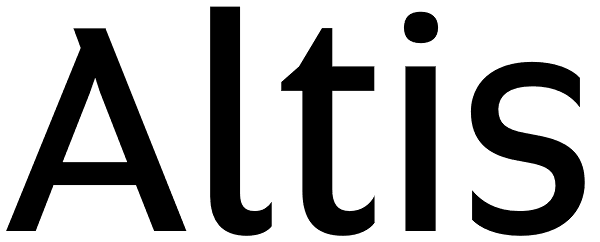
Altis
Altis combines geometric regularity and soulfulness into one font family. It resembles the traditional sanserif from the early 20th century, which communicates friendly and reads extremely well. Bring out its optimistic airiness with light styles or...